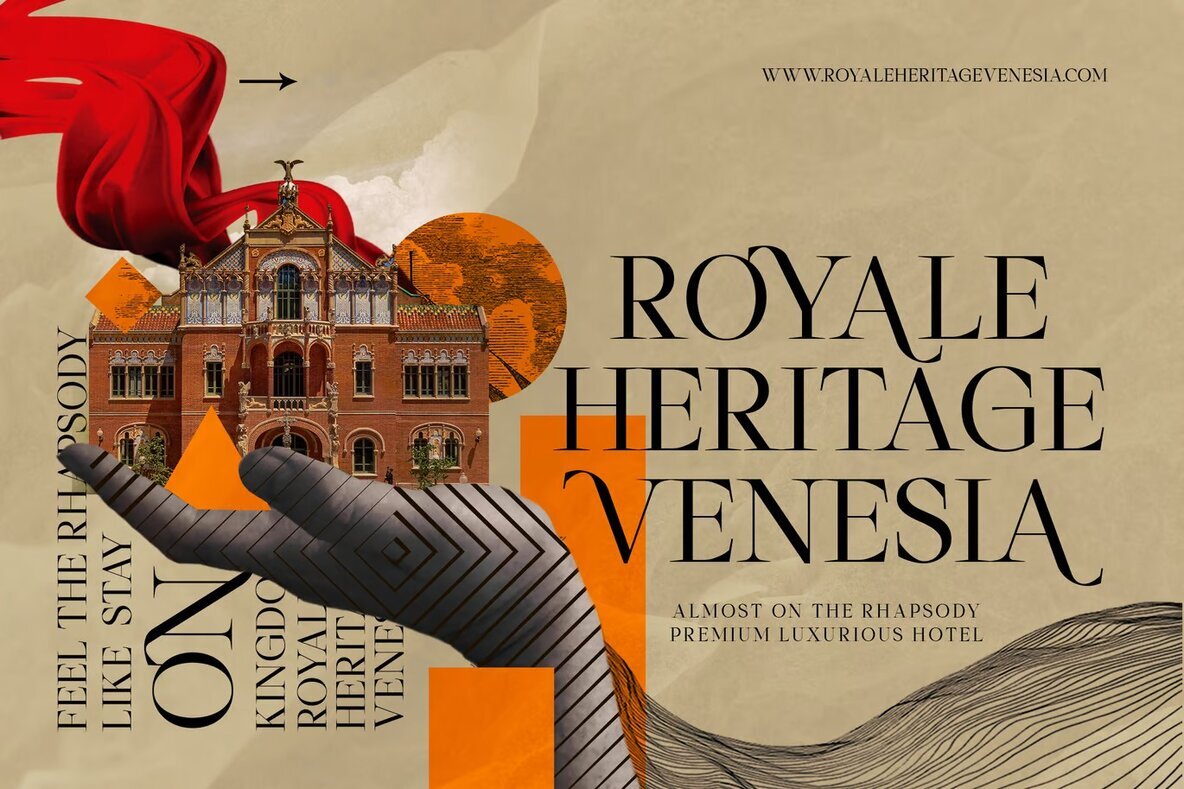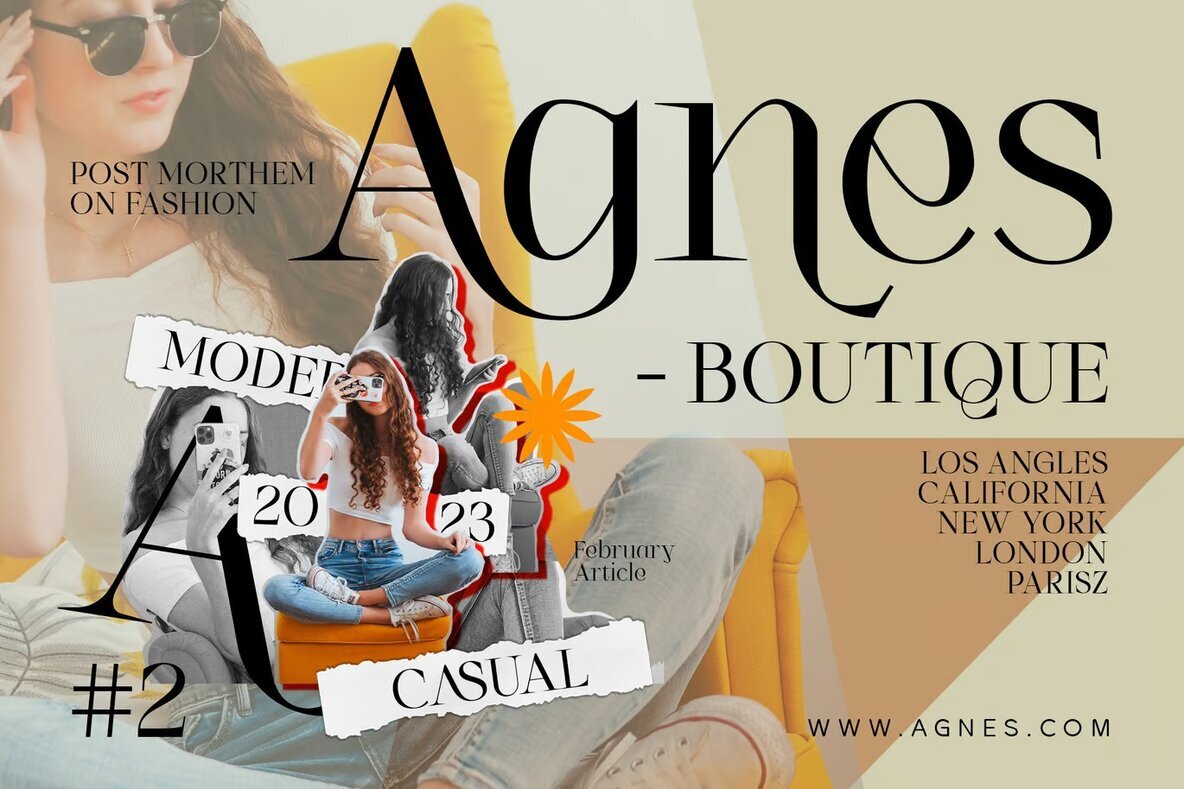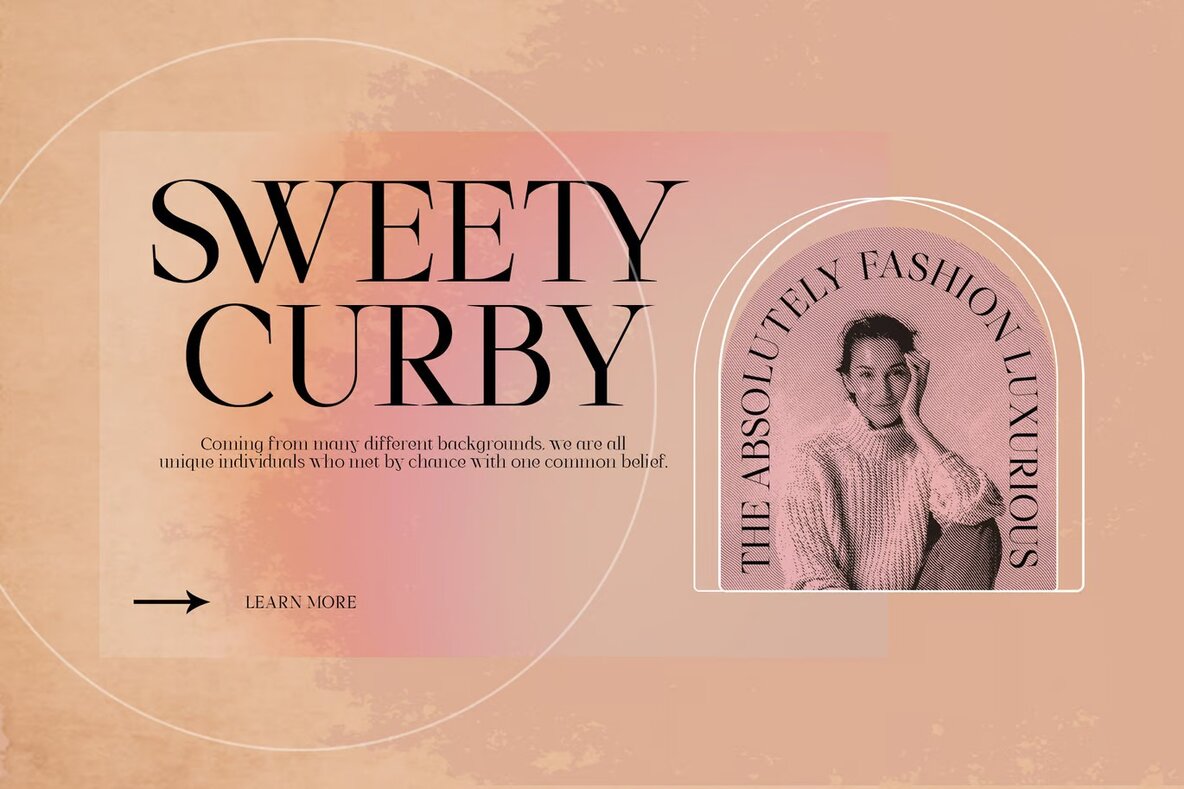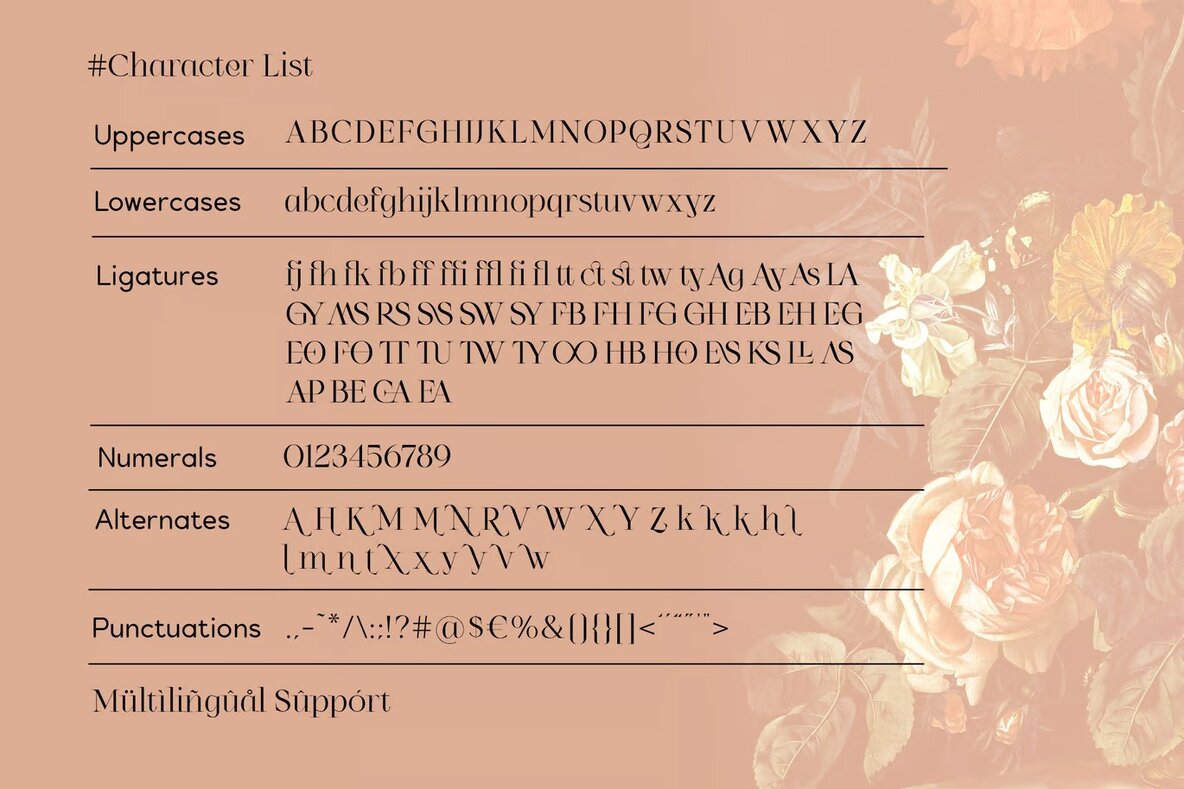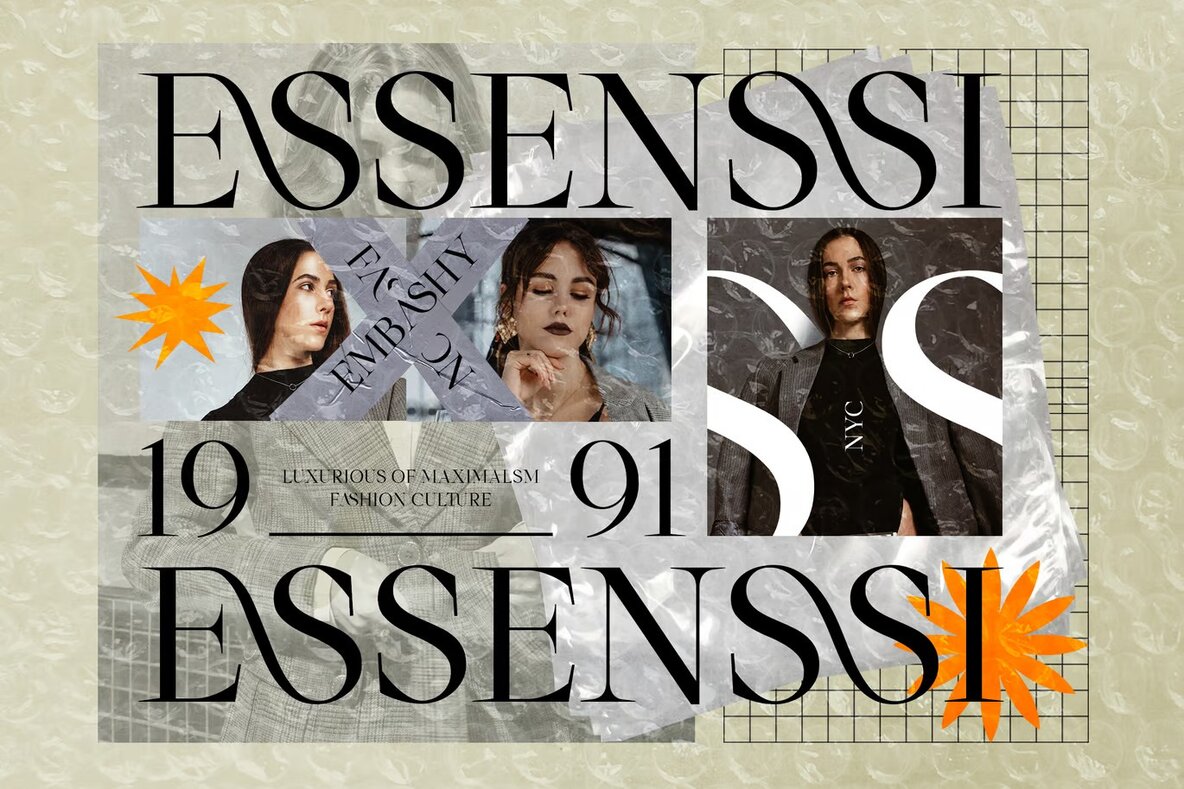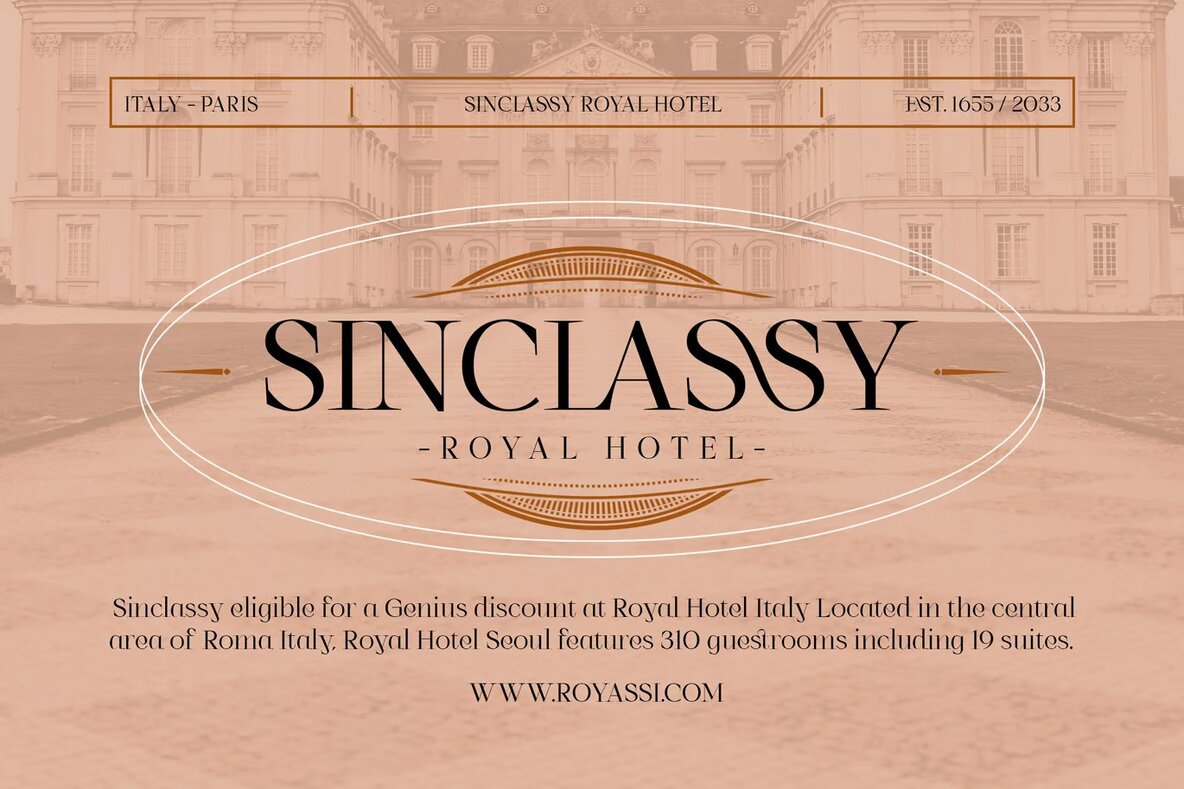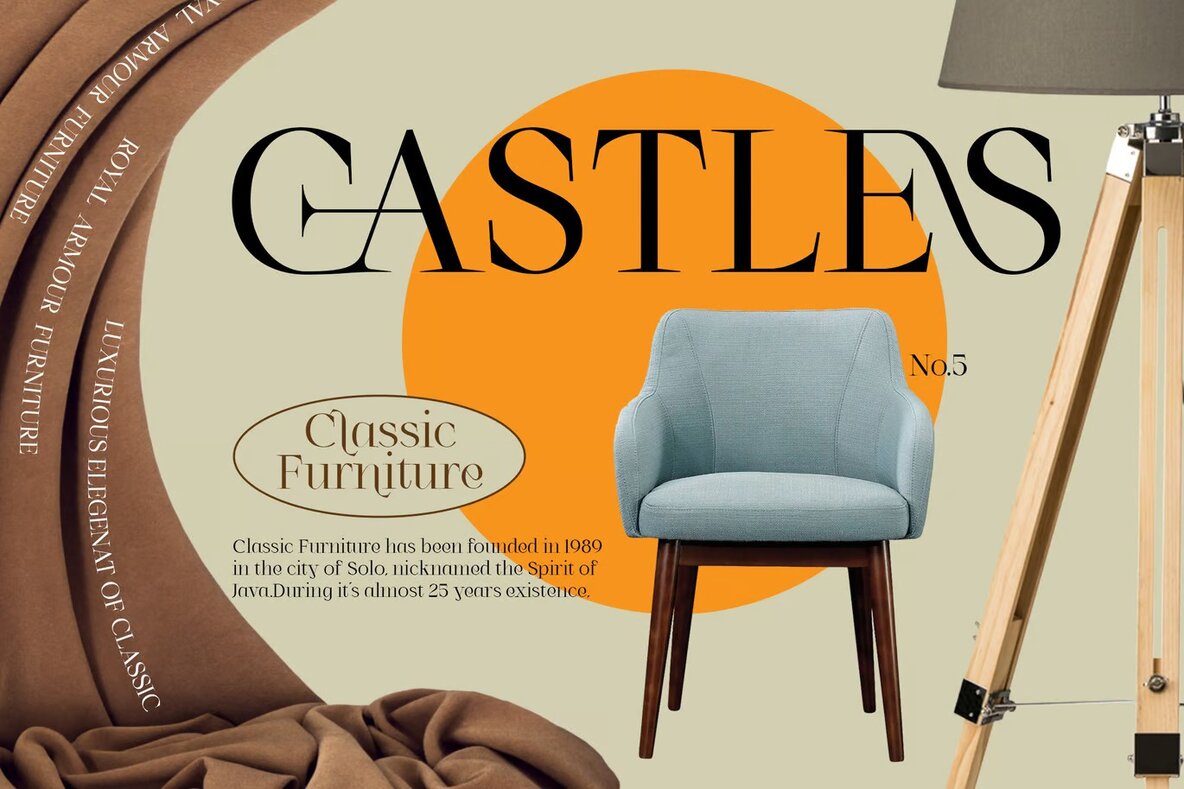
Allesters Font
Allesters Regular
Allesters is a sophisticated and elegant beauty ligature serif font that adds a touch of elegance and creativity to your design projects. Its unique ligatures, discretionary ligatures, and alternates give it a distinct and sophisticated look that sets it apart from other fonts. This font is perfect for a wide range of design projects, including magazines, novel books, wedding invitations, logos and branding, advertising design and more. Its versatile style makes it suitable for both formal and informal designs, while the extra features add a touch of creativity to your designs. The creation of Allesters font involved extensive research and testing to ensure that it is a high-quality font. The result is a font that is both beautiful and functional, perfect for adding a touch of sophistication and creativity to your designs. Download Allesters Font today and start creating stunning designs that stand out from the crowd.